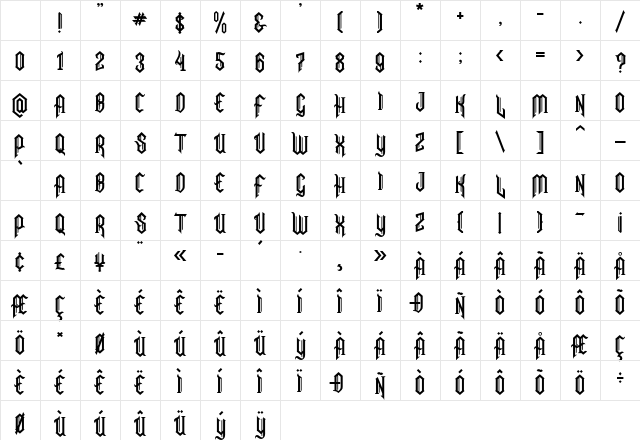
Complete Snubhore Demo Regular glyph index. Displaying only characters natively supported by Snubhore Demo Regular font.
Snubhore Demo is a composed and adaptable typeface that performs quietly and consistently across a wide range of design contexts.